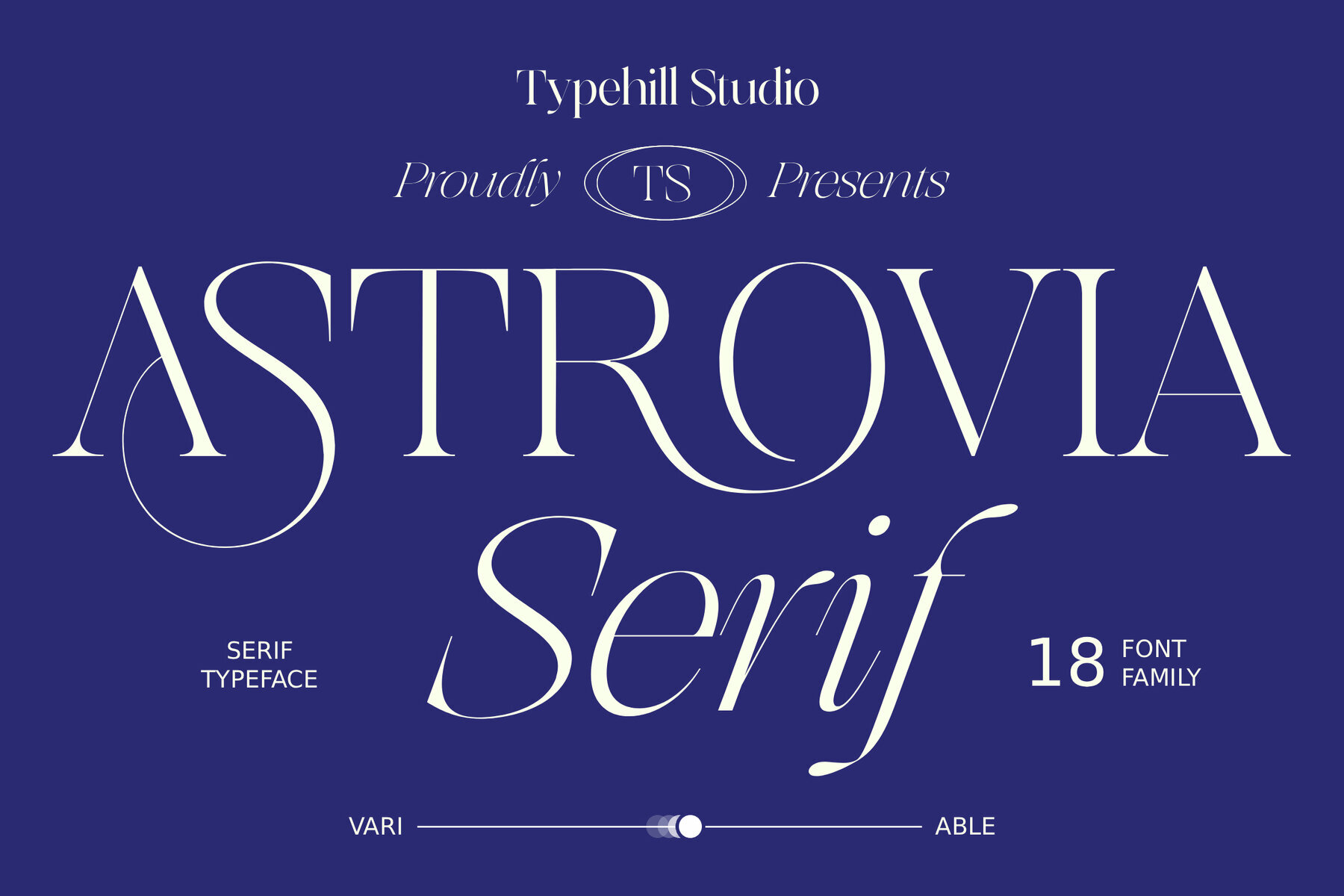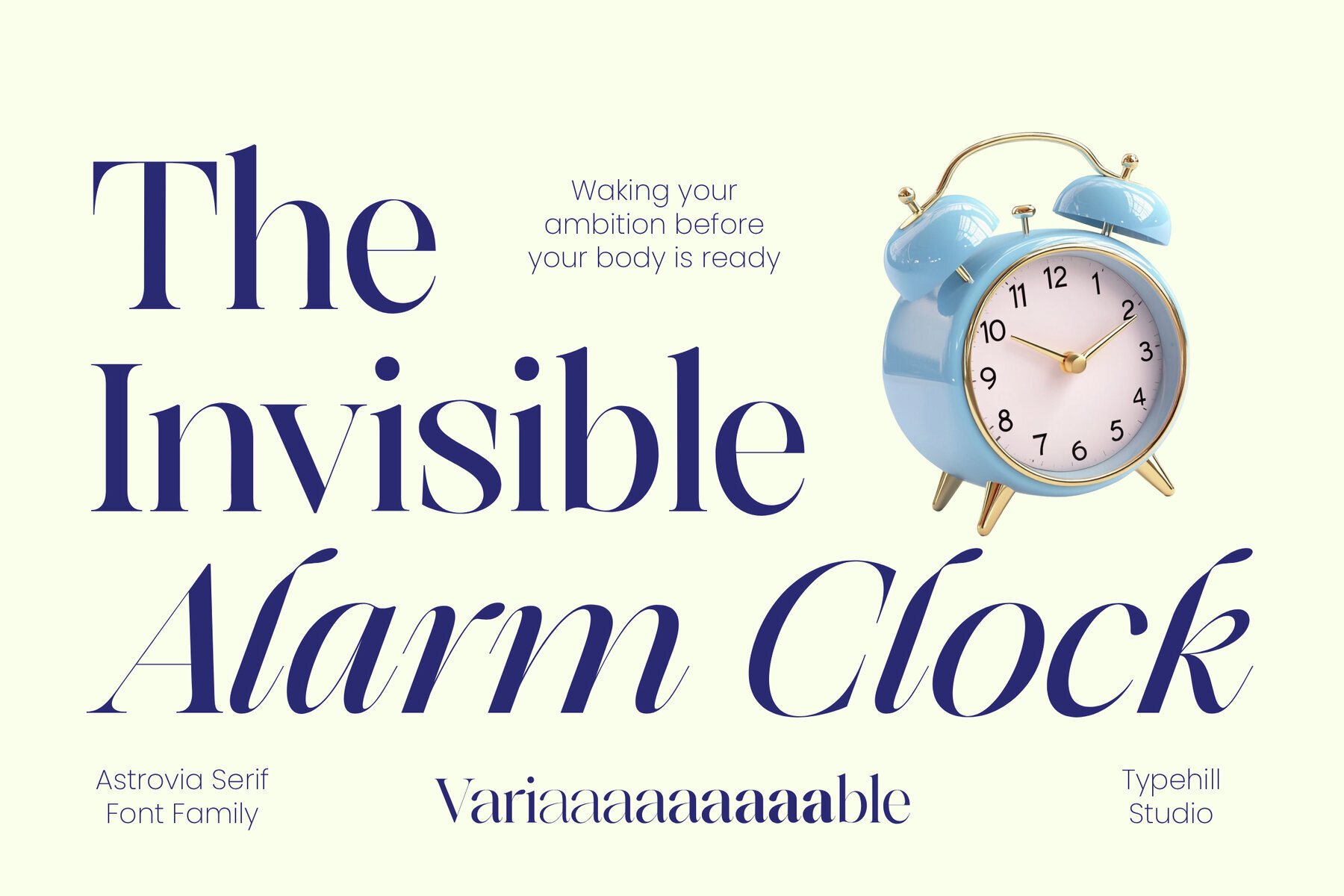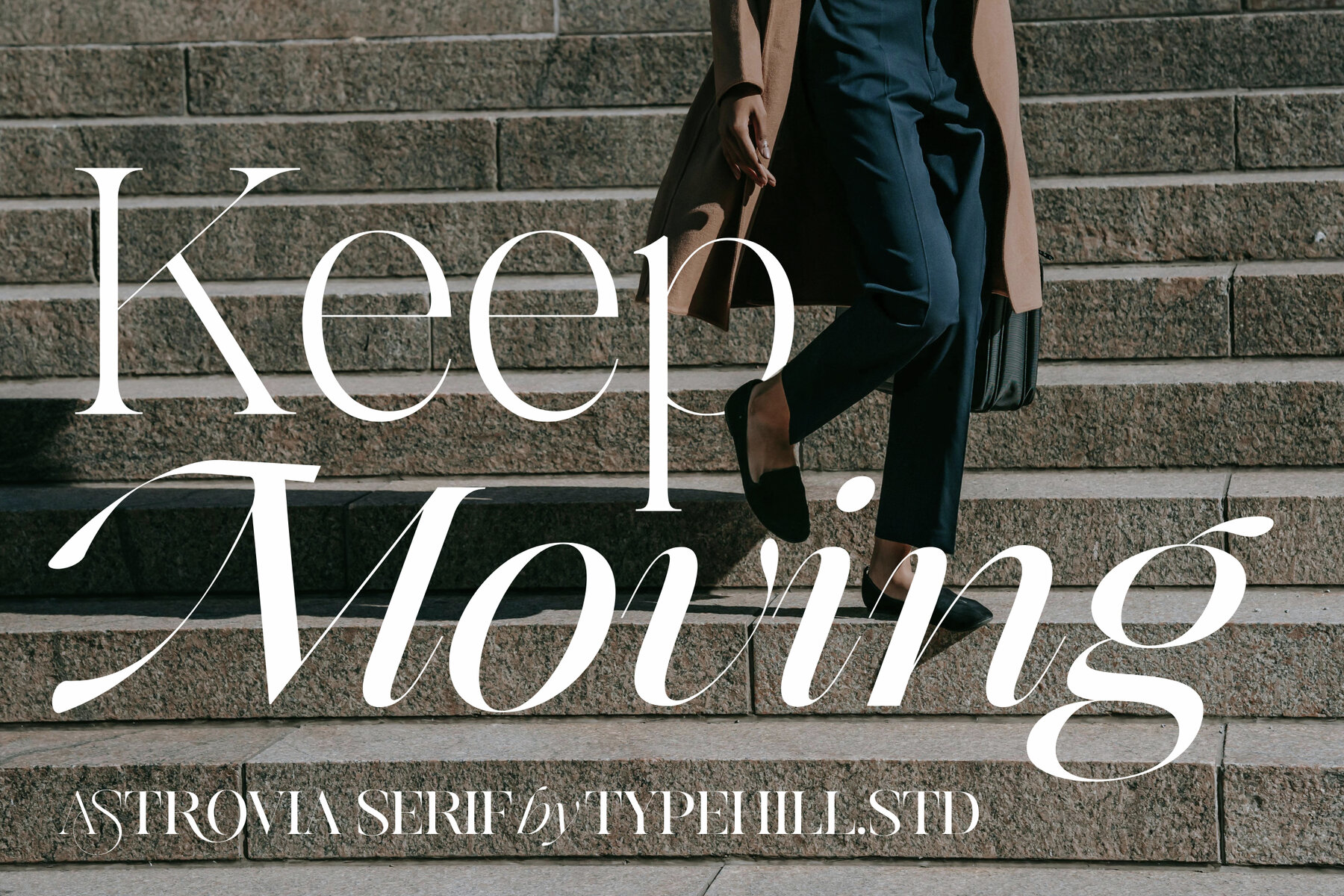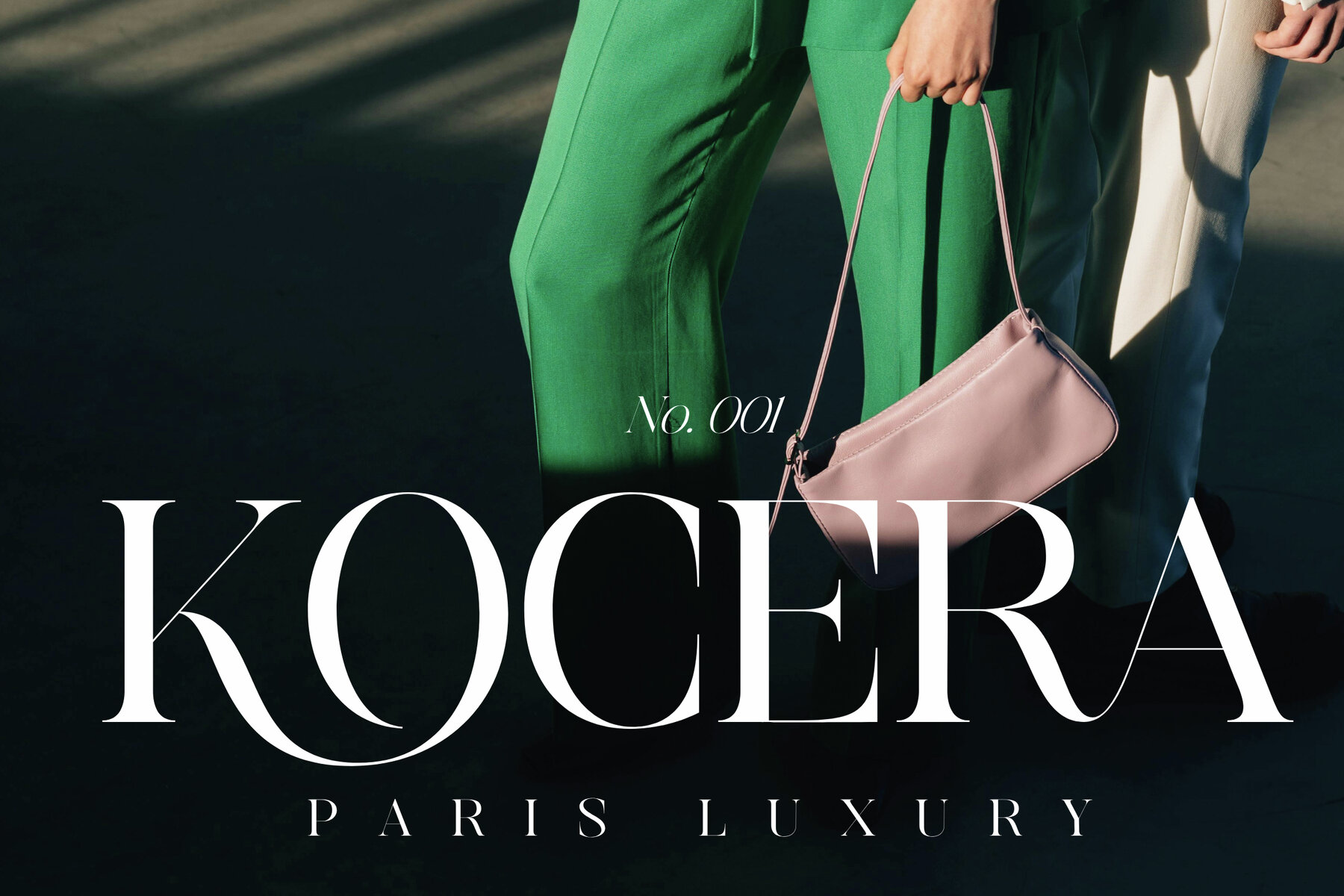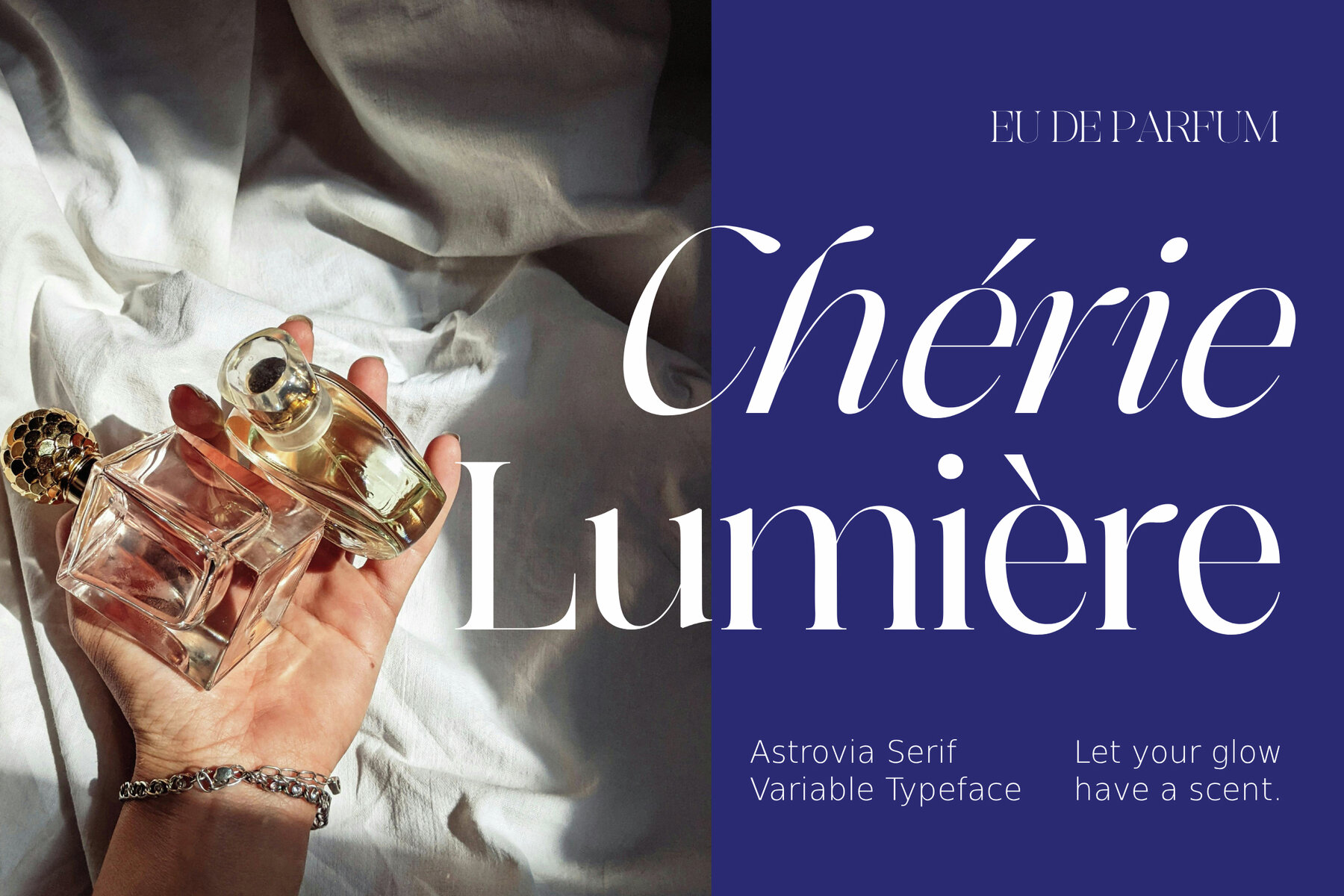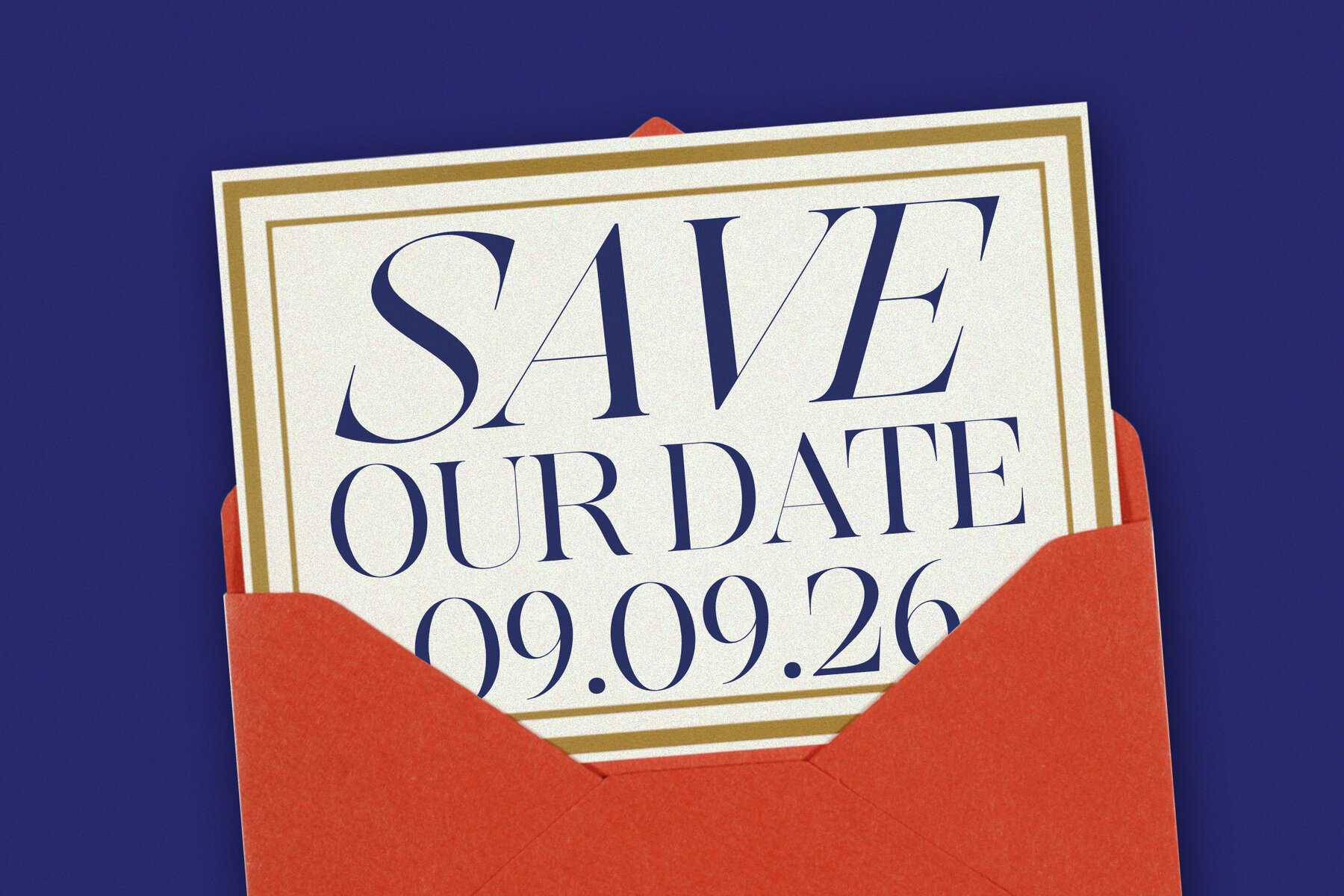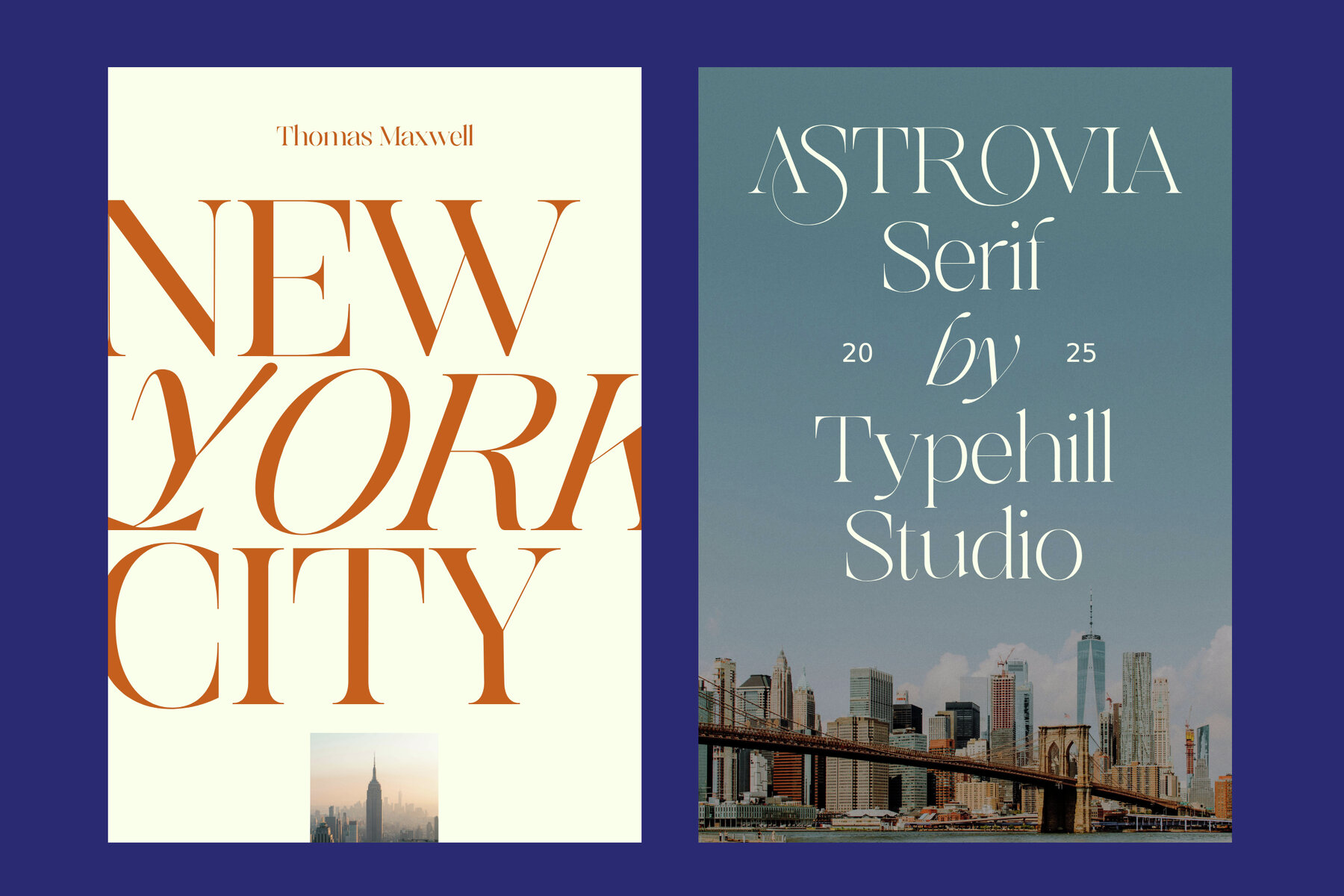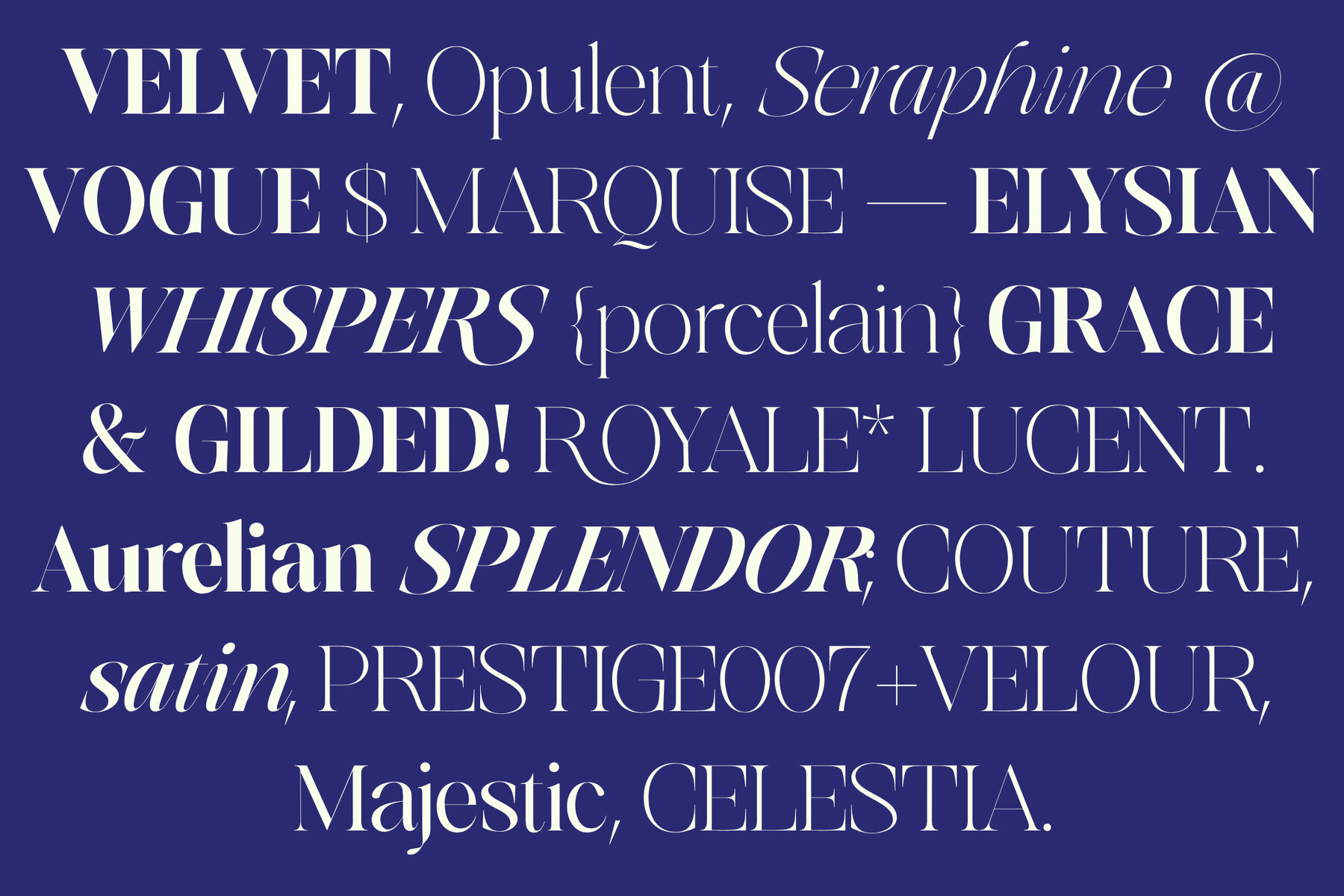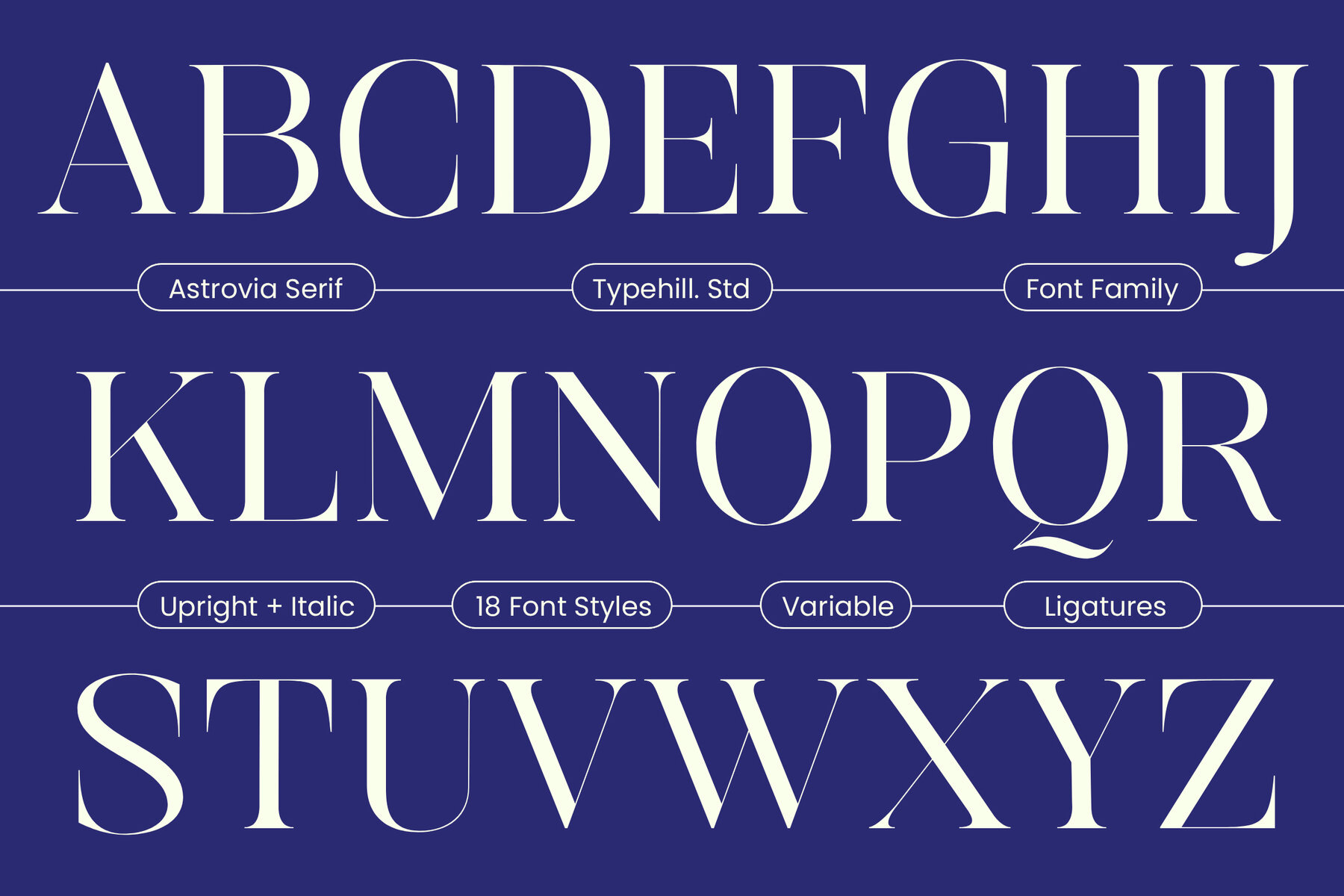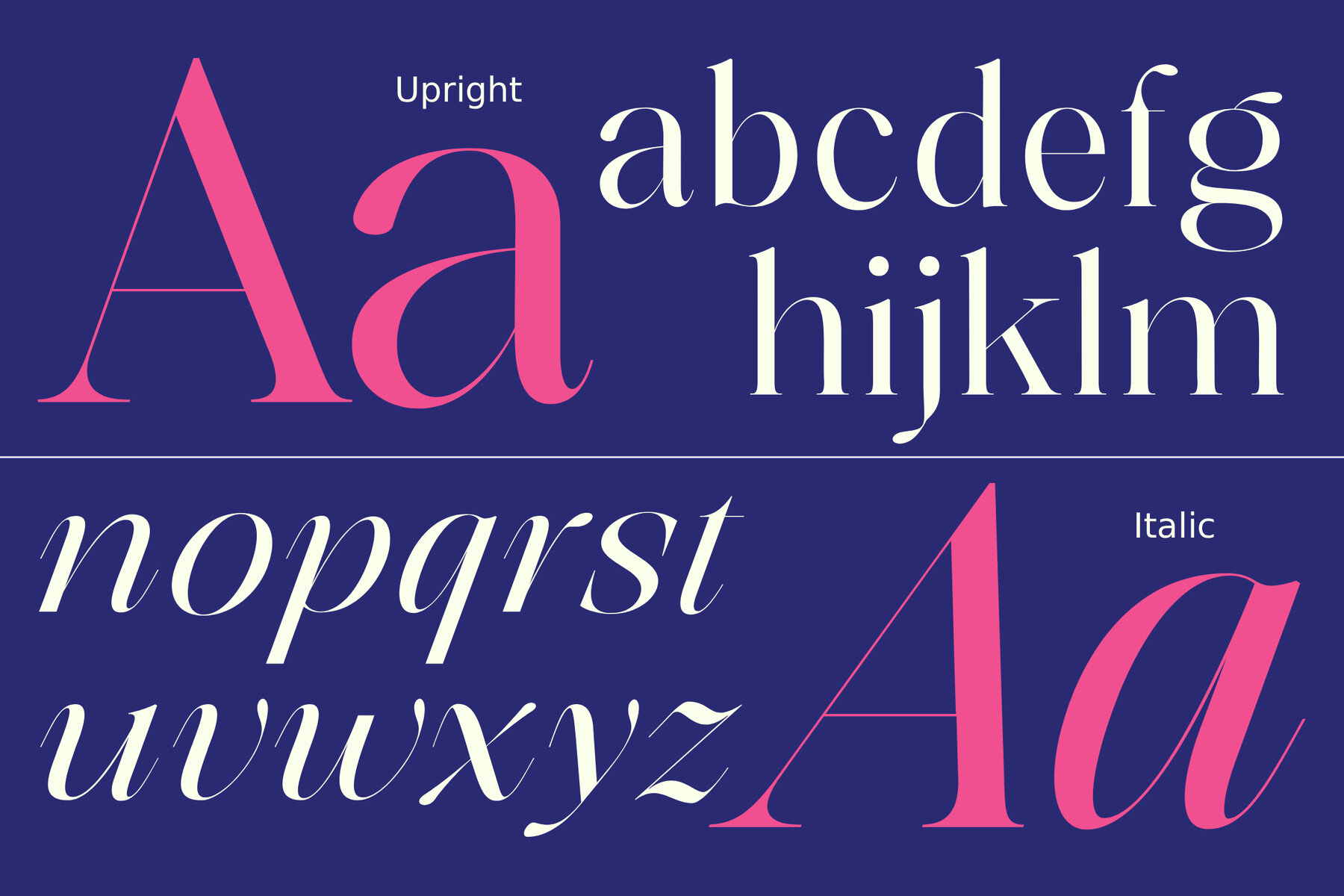
Astrovia Font
Astrovia Serif offers the ideal balance of timeless elegance and modern detail. This comprehensive typeface family includes 18 styles, ranging from Thin to Black, with dynamic italics that add expressive rhythm to your layouts. Its sharp yet graceful serifs and refined stroke details provide a distinctive appearance, making it suitable for editorial layouts, long-form text, branding, and sophisticated packaging projects. The Italic variations maintain clarity and bring subtle movement to typography, supporting a seamless reading experience. As a Variable Font, Astrovia Serif adapts fluidly across weight and style, allowing for precise, efficient typographic control within a single file. This flexibility streamlines workflow while achieving consistent visual impact across print and digital platforms.Astrovia Serif — Classic Refinement Meets Modern Versatility